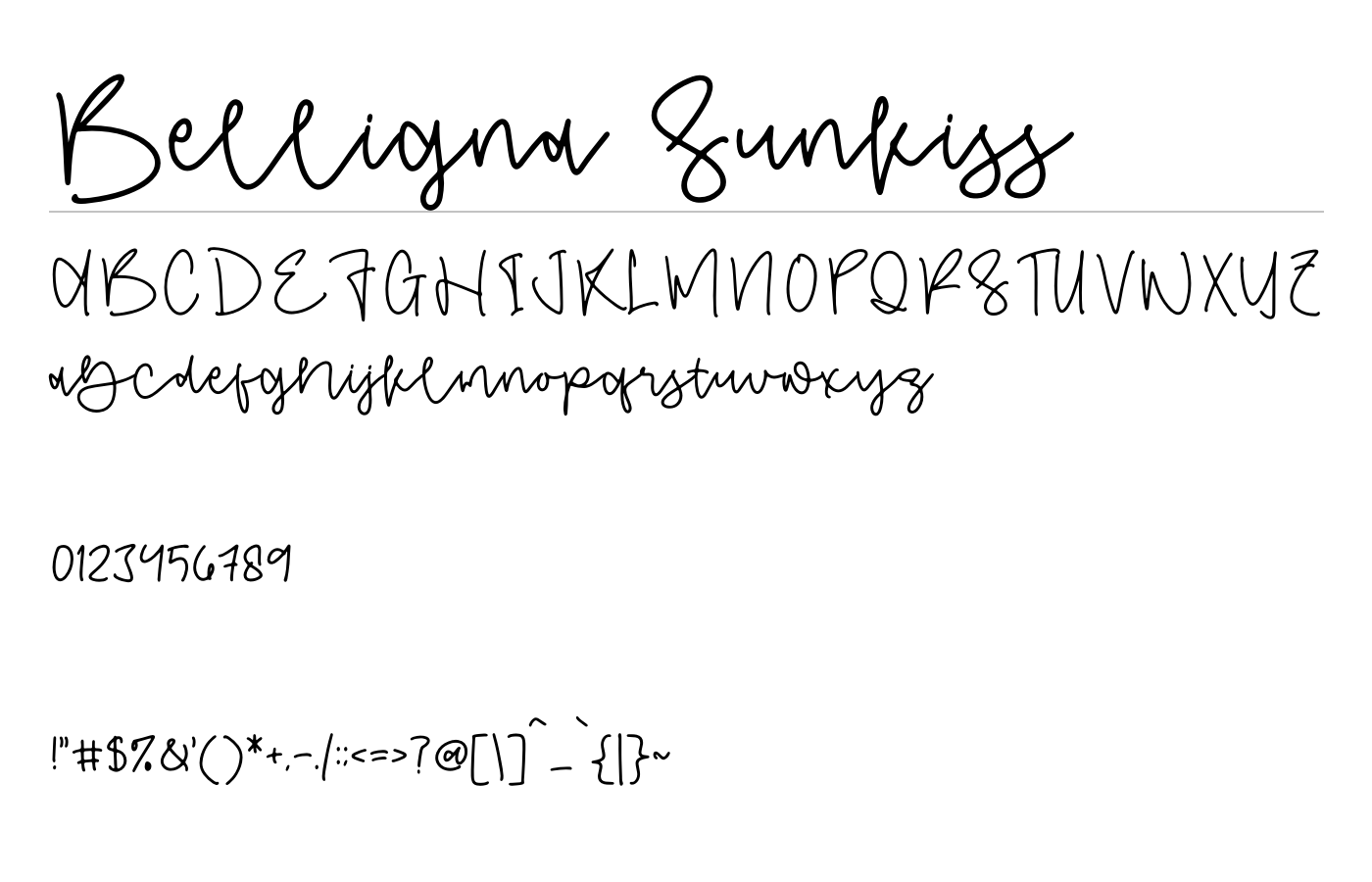
Belligna Sunkiss is a playful and casual handwritten script font with a light weight and a natural, flowing style. Its tall x-height and lively letterforms give it a friendly, approachable feel, perfect for adding a personal touch to creative projects. This font works great for invitations, branding, and social media graphics where a warm and informal vibe is desired.
Belligna Sunkiss Font
About Belligna Sunkiss Font